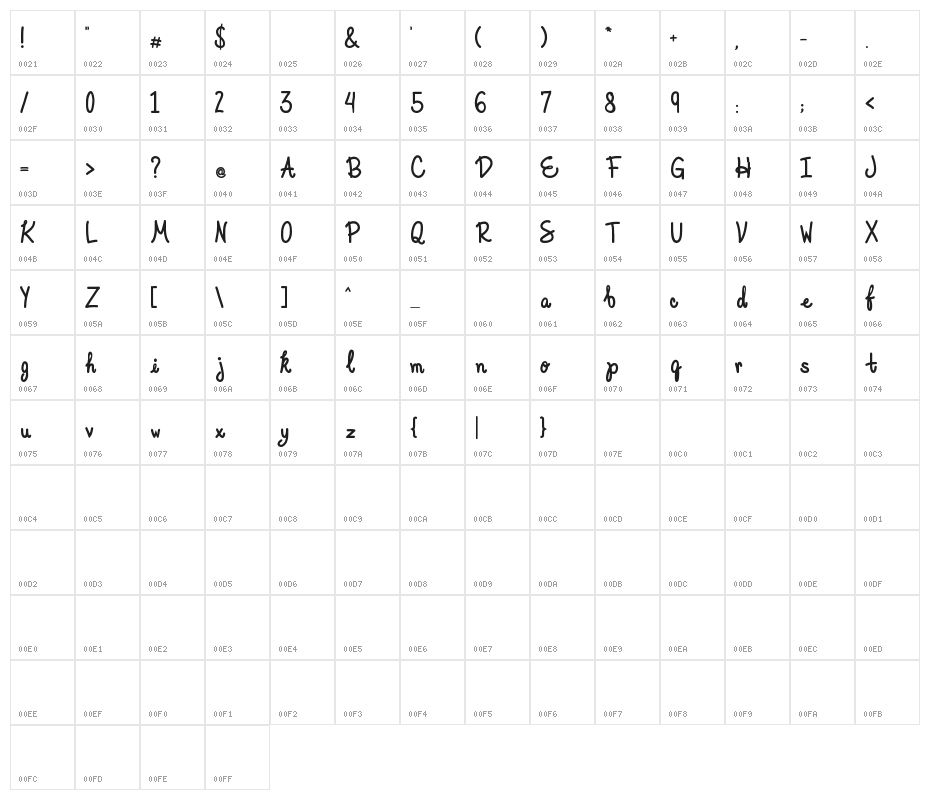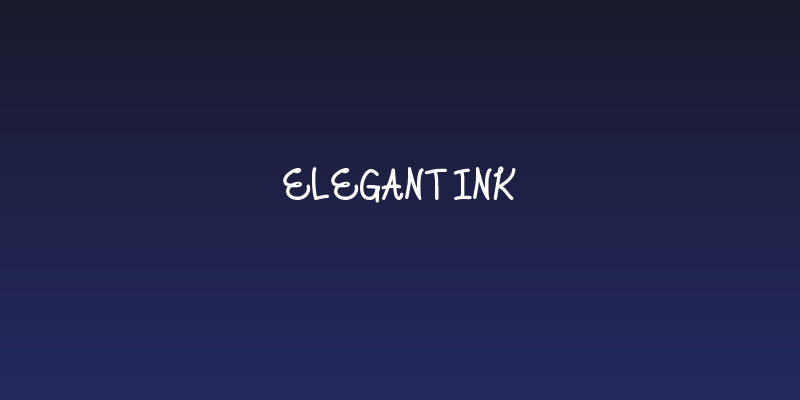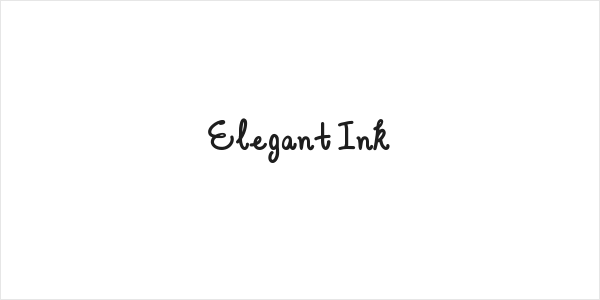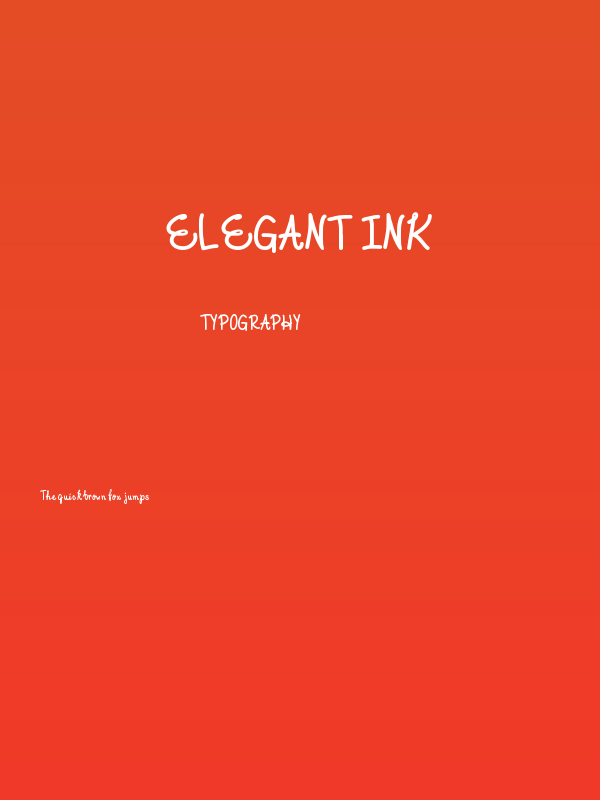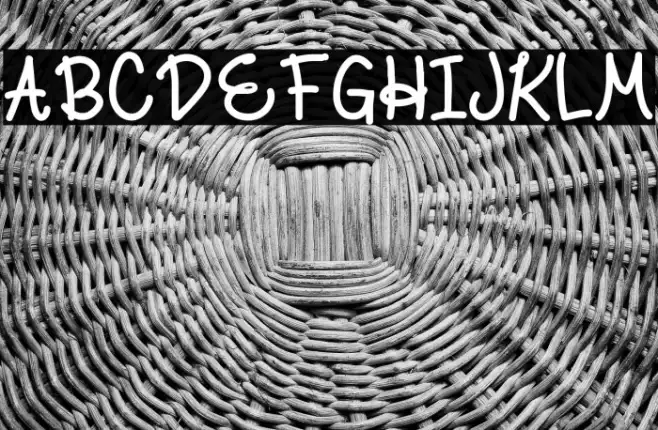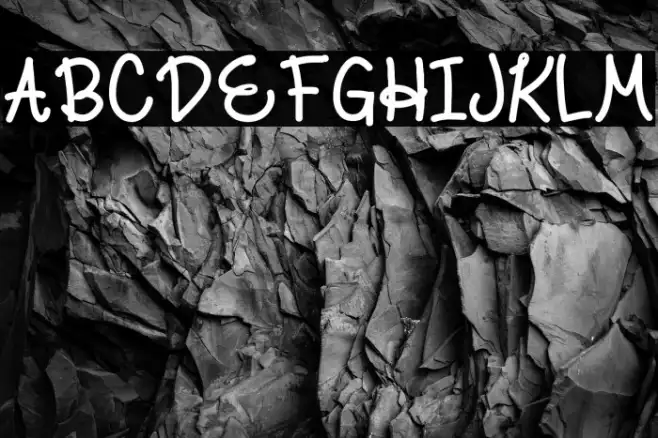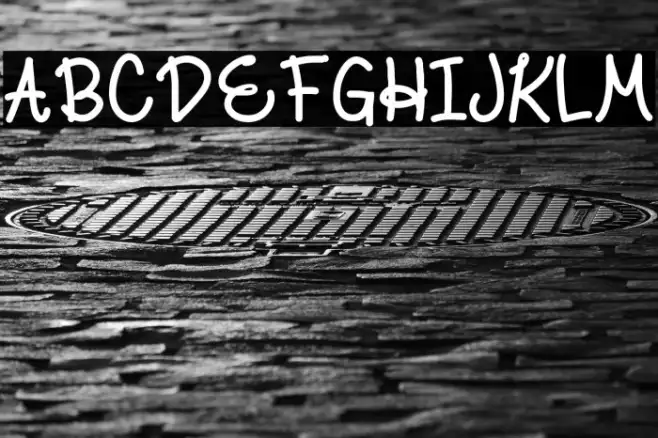
Elegant Ink Font
Elegant Ink Description
This font features a playful and casual handwritten style, characterized by its smooth curves and slightly irregular strokes that give it a personal touch. The uppercase letters are bold and prominent, while the lowercase letters maintain a consistent flow with a slightly whimsical flair. The numerals are clear and easy to read, matching the overall informal aesthetic. Special characters are well-integrated, maintaining the font's cohesive look. This font exudes a friendly and approachable vibe, making it suitable for a variety of creative projects.
| Proposed Projects | Ideal for greeting cards, invitations, personal branding, and creative projects that require a friendly and informal touch. |